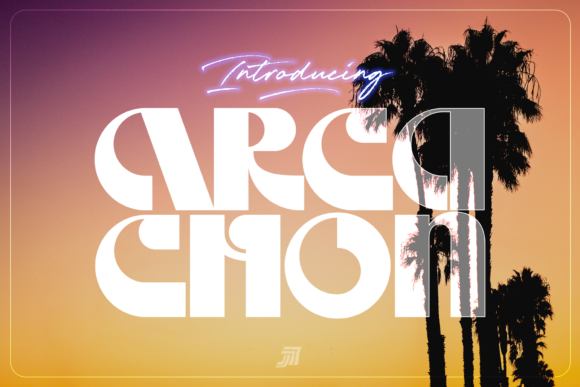
The Arcachon Font: A Bold Charm for Your Design Projects
I’ll never forget the time I was working on a project for a luxury brand, and I just couldn’t find the right font to capture their essence. The client wanted something bold, elegant, and sophisticated, but everything I tried seemed to fall flat. That’s when I stumbled upon the Arcachon font, inspired by the iconic welcome sculpture of the French city Arcachon. It was love at first sight! ✨
Arcachon is an incredible Art Deco display font with a unique feel that adds a touch of glamour to any design project. In this article, I’ll share my experience with this stunning font, its features, and how to make the most of it in your designs.
- ✨ Unique and eye-catching design: Arcachon is unlike any other font I’ve seen. Its bold charm is perfect for headlines, titles, and statements.
- ✅ High-quality and crisp rendering: The font looks amazing even at large sizes, making it perfect for posters, billboards, and other display materials.
- 💥 Extensive OpenType features: Arcachon comes with a range of OpenType features, including stylistic alternates, ligatures, and glyphs, giving you plenty of creative options.
While Arcachon is an amazing font, there are a few things to keep in mind: 🤔
- ⚠️ Limited use for body text: Due to its bold and decorative nature, Arcachon is best suited for headlines and titles. It might not be the best choice for body text or long paragraphs.
- ⚠️ Some characters may require manual kerning: As with any font, you might need to adjust the kerning for certain character combinations to get the best results.
Arcachon is inspired by the iconic welcome sculpture of the French city Arcachon, which was designed in the 19th century. The font’s creator was likely inspired by the city’s rich history, beautiful architecture, and stunning natural surroundings. The result is a font that’s both elegant and bold, perfect for making a statement in your designs.
Q: What is the history behind the Arcachon font?
A: The Arcachon font is inspired by the iconic welcome sculpture of the French city Arcachon, which was designed in the 19th century.
Q: Does Arcachon come with OpenType features?
A: Yes, Arcachon comes with a range of OpenType features, including stylistic alternates, ligatures, and glyphs.
Q: Can I use Arcachon for body text?
A: While Arcachon is an amazing font, it’s best suited for headlines and titles due to its bold and decorative nature. For body text, you may want to choose a more traditional font.